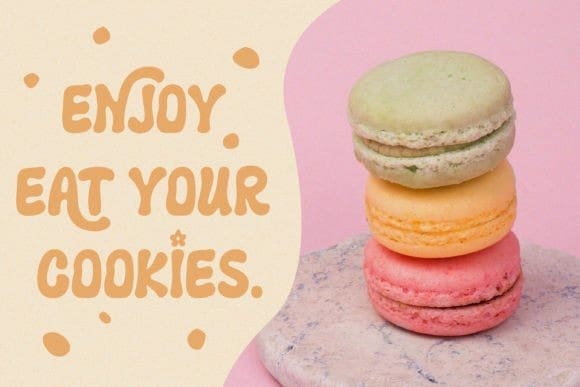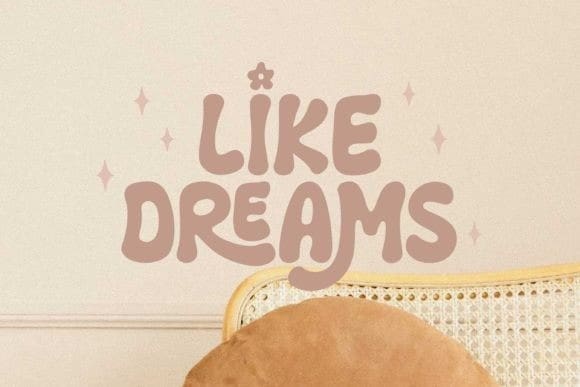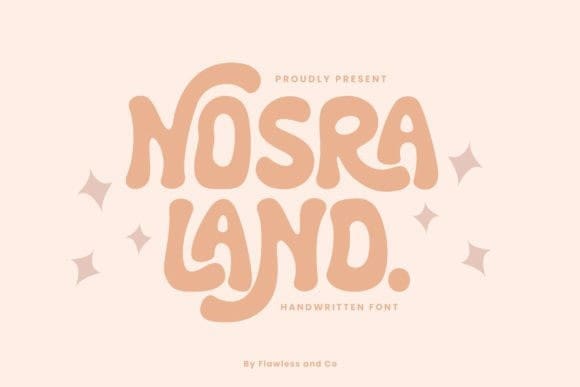
Nosra Land Font
Nosra Land Font a bold and chunky font designed to command attention on YouTube. With its strong presence and distinctive style, NosraLand ensures that your video titles and thumbnails stand out in the crowded digital landscape, enticing viewers to click and engage.